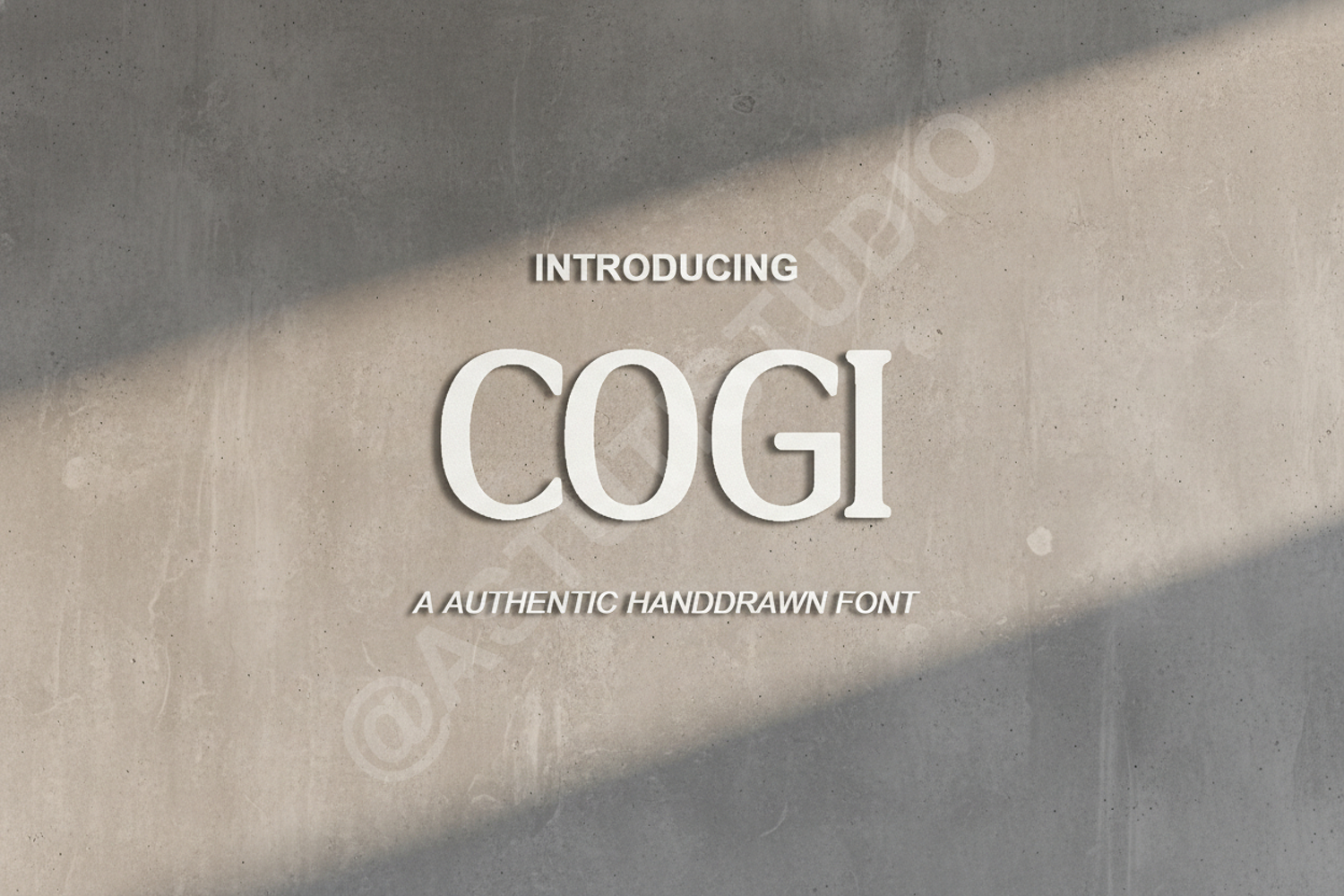
Cogi - Modern Geometric Sans-Serif Typeface
Cogi
Cogi is a premium geometric sans-serif font that blends modern aesthetics with timeless readability. Designed with precision and a focus on balance, Cogi offers a clean and sophisticated look that elevates any creative project. Whether you are building a high-end brand identity or designing a sleek website, this font provides the versatility needed for professional results.
- Full set of uppercase and lowercase letters
- Numbers, punctuation, and multilingual support
Ideal Use Cases
- Brand Identity and Logo Design: Create a memorable and professional brand presence.
- Editorial Layouts: Perfect for magazine headers and clean body text.
- Digital Media: Optimized for high readability on websites and social media graphics.
- Product Packaging: Add a touch of modern minimalism to your physical products.
- Corporate Presentations: Ensure your message is delivered with clarity and style.